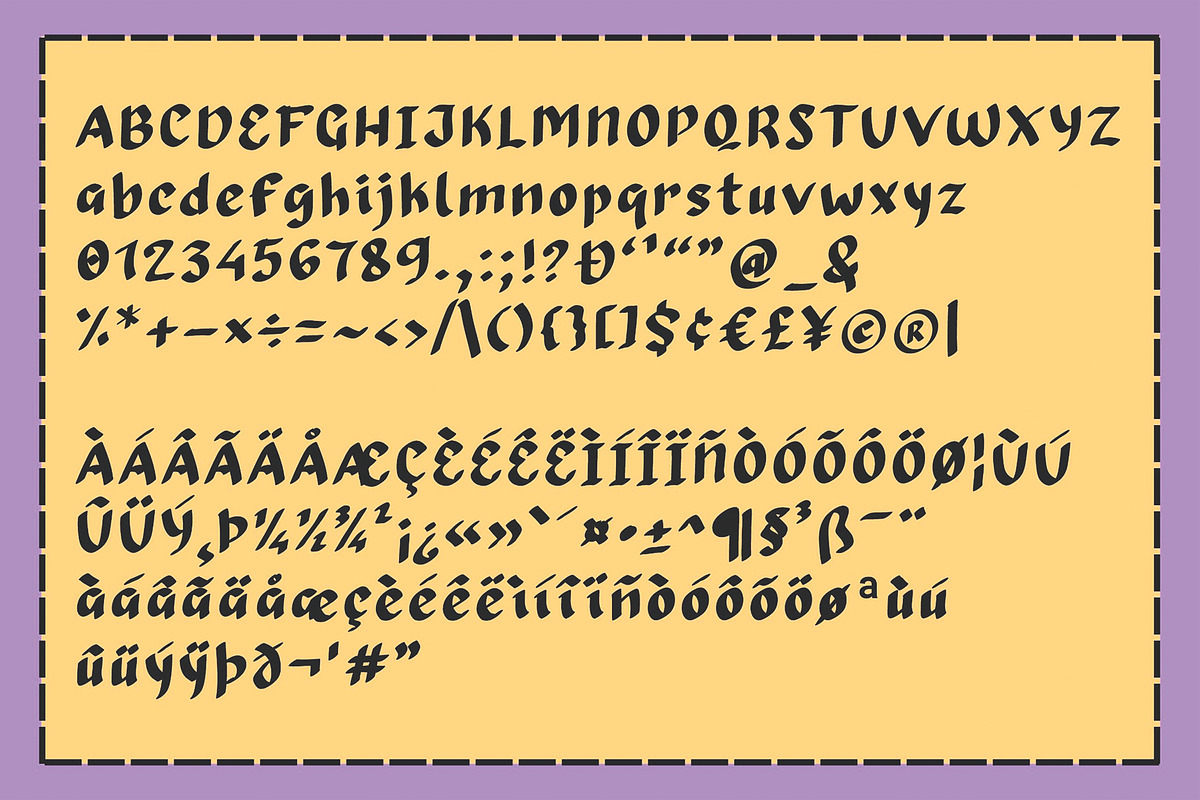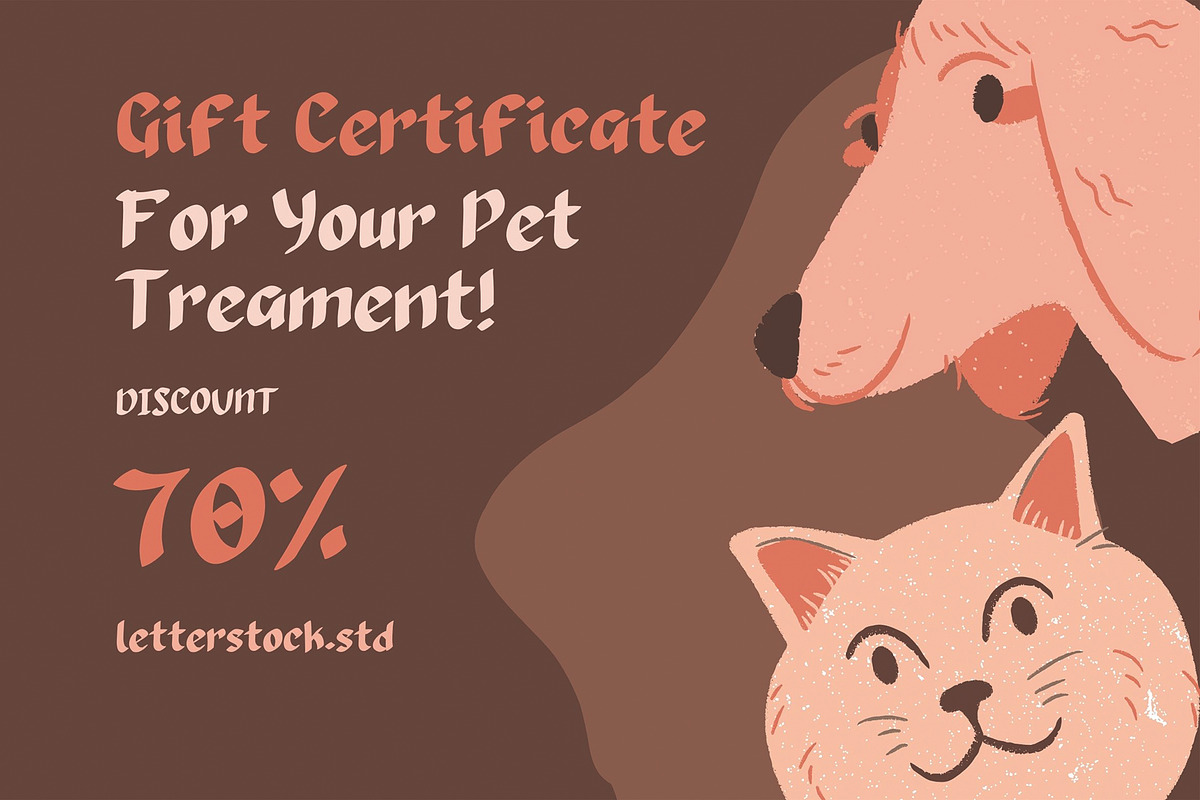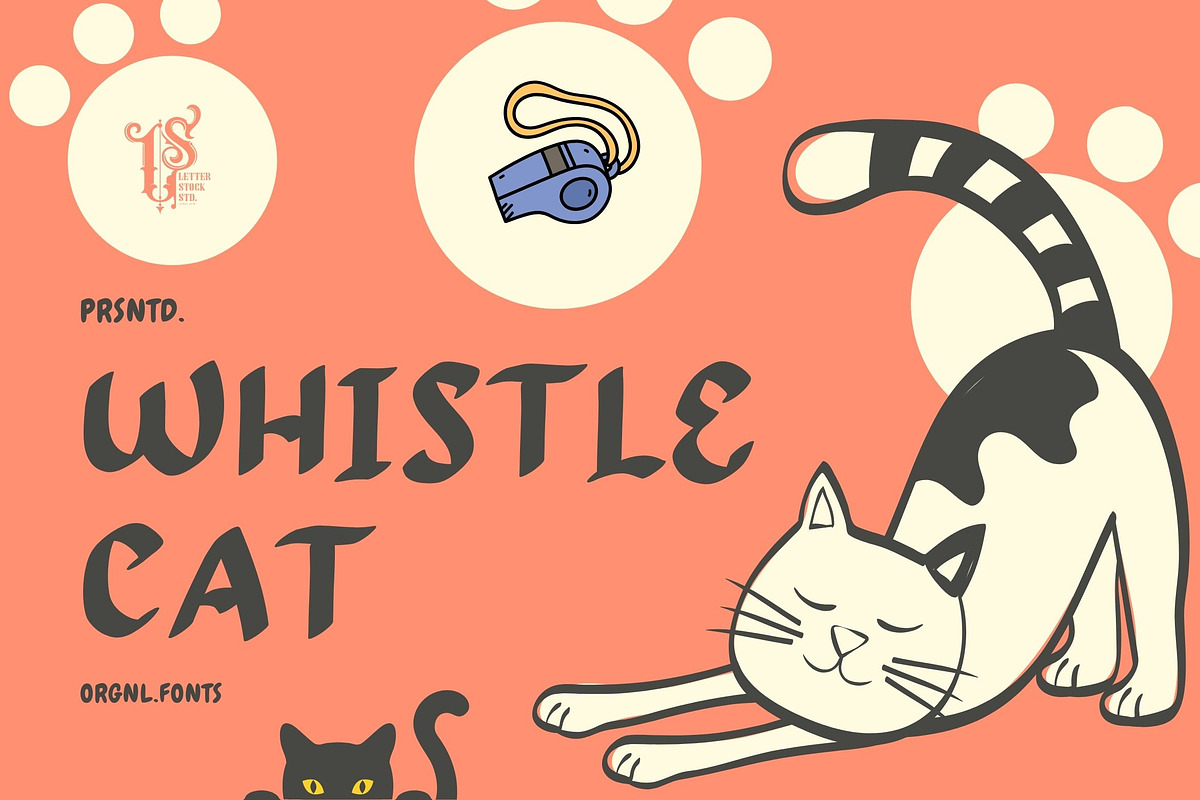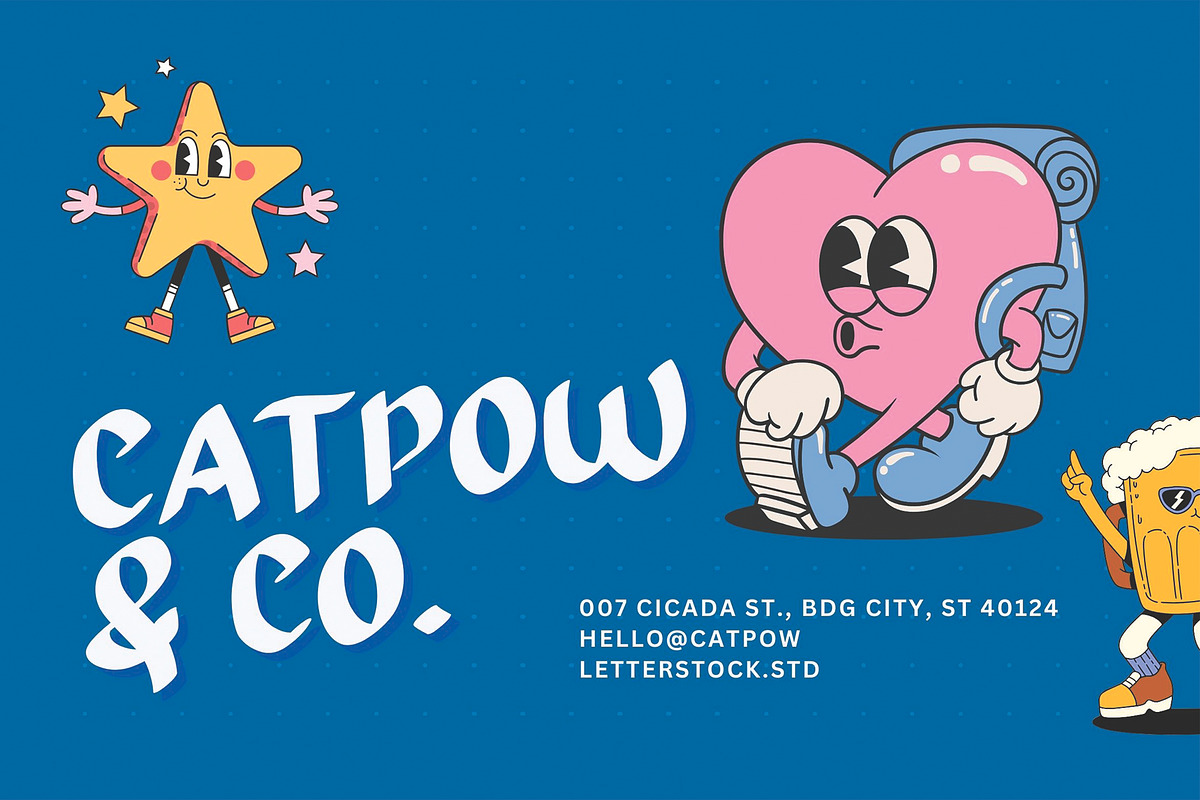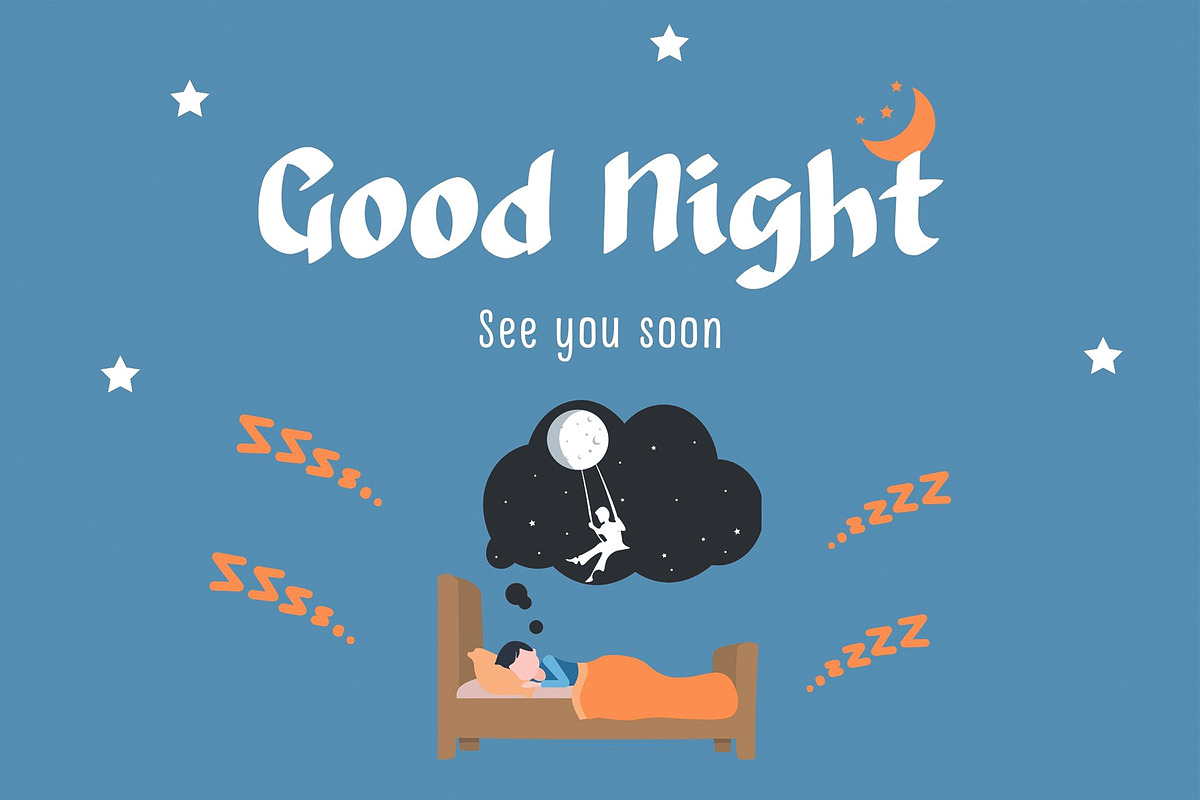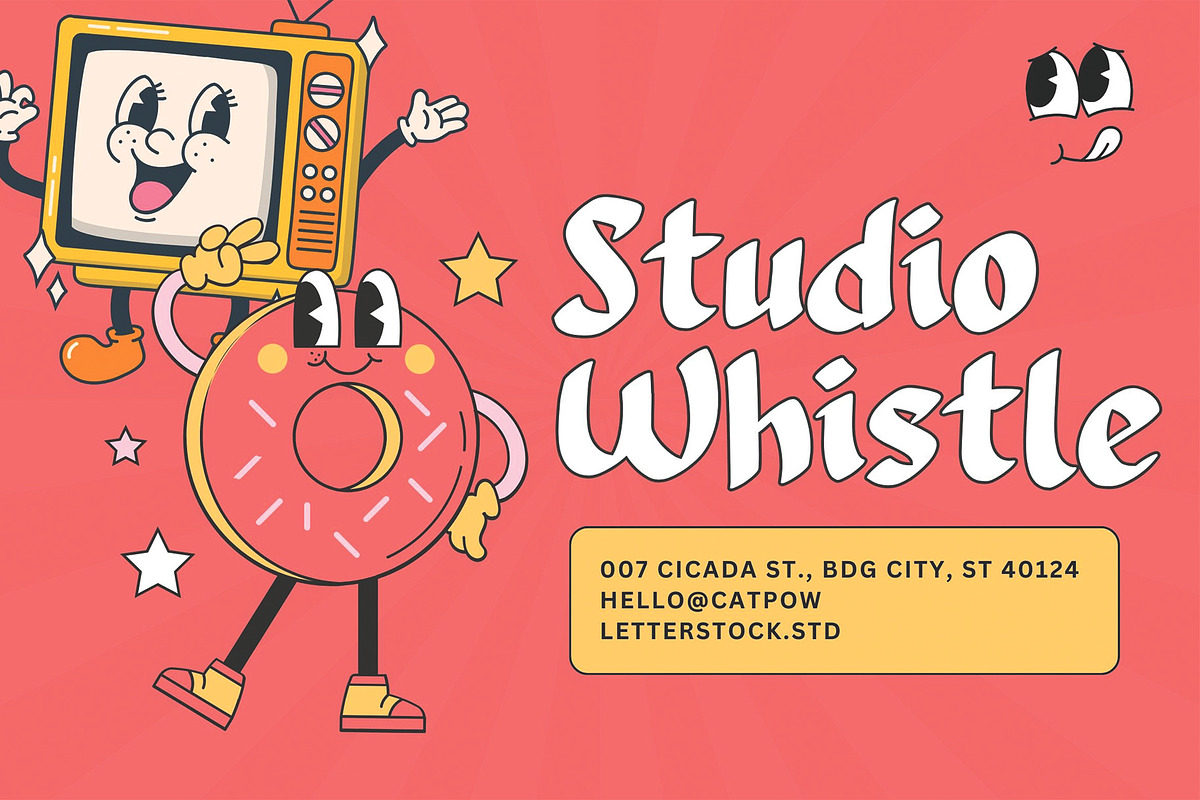
Whistle Cat
Introducing "Whistle cat" – an original hand-drawn font with retro 60's decorative vibes. Embrace the nostalgia of the past with this charming and playful typeface. Perfect for adding a touch of whimsy to your designs, "Whistle cat" is ideal for posters, logos, invitations, and more. With TTF, OTF, and WOFF files included, it's easy to bring your creative vision to life.
Original hand-drawn design Retro 60's decorative vibes Perfect for posters, logos, invitations, and more TTF, OTF, and WOFF files included for easy use